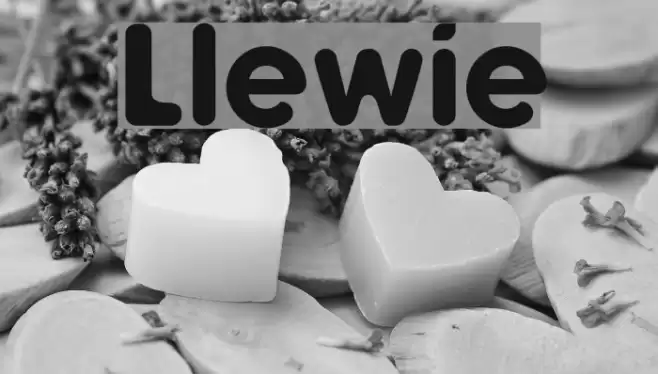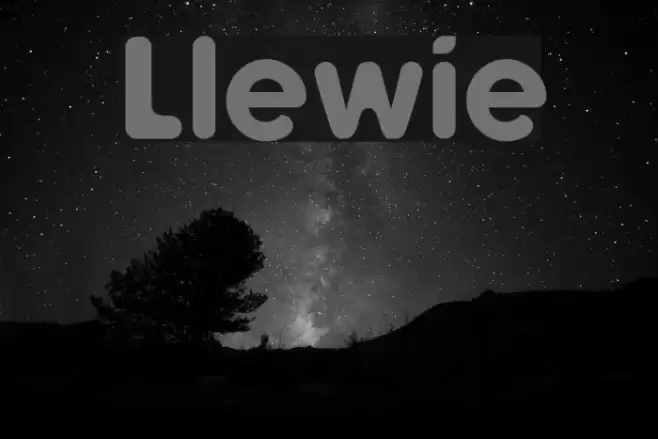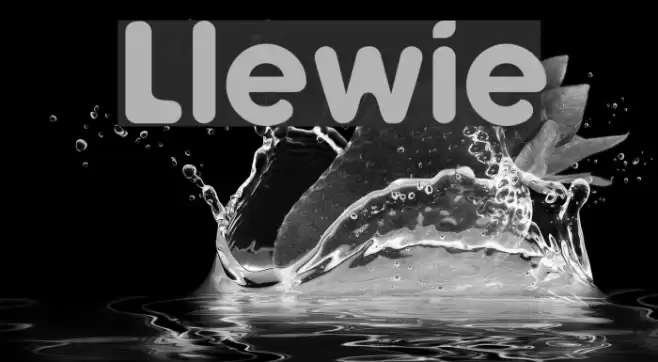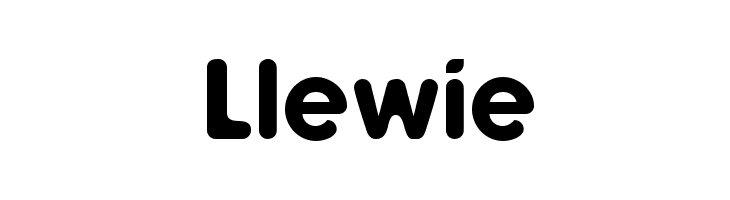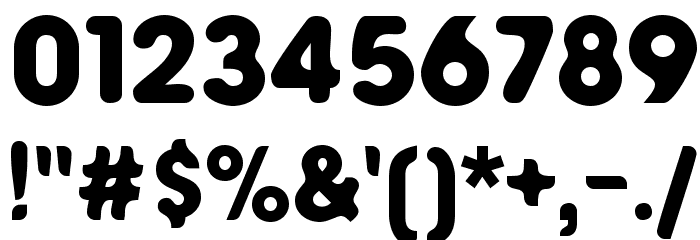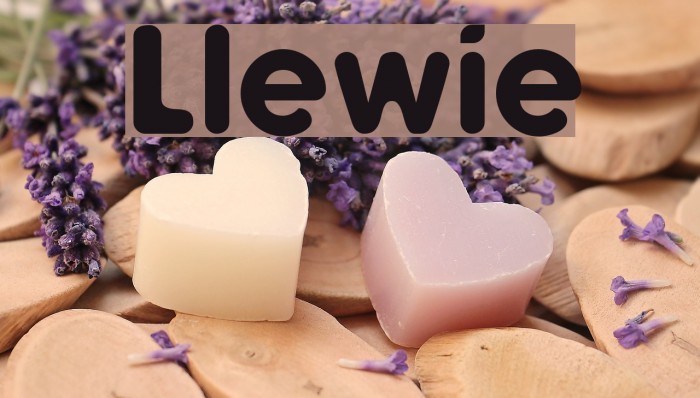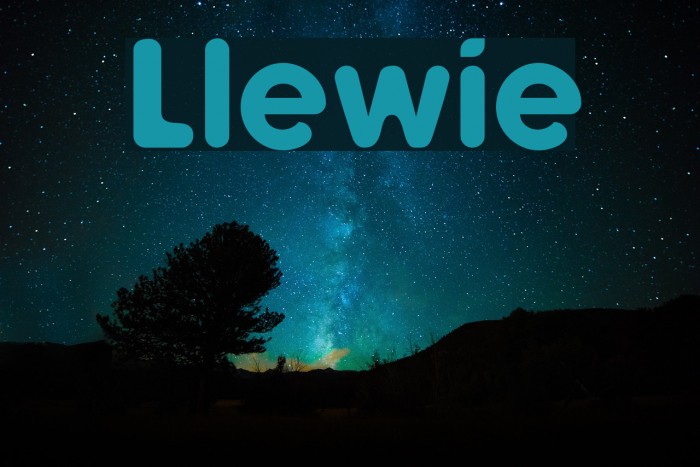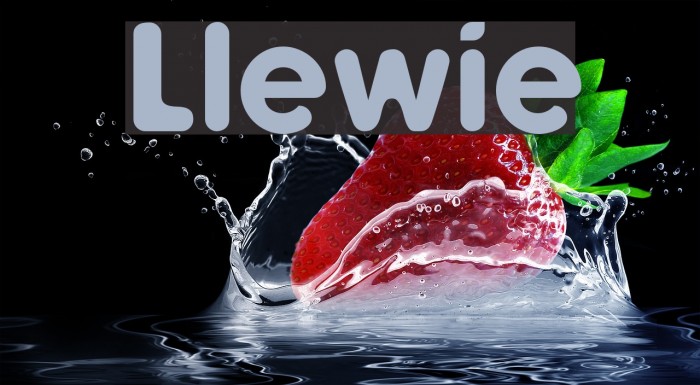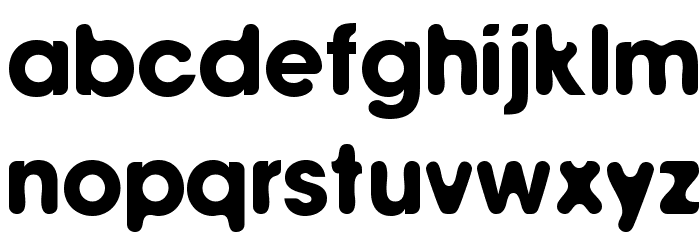
Llewie
This font features a bold and playful design with rounded edges and a bubbly appearance. The characters are uniformly thick, giving it a strong presence and making it highly legible. Its rounded forms and consistent stroke weight create a friendly and approachable look, suitable for a variety of creative projects. The font maintains a consistent width across all characters, ensuring a balanced and harmonious appearance. Its whimsical style is perfect for capturing attention and adding a touch of fun to any design.
A bold, playful font with rounded edges and a bubbly appearance.
- Proposed Projects: Ideal for children's books, playful branding, posters, and social media graphics.
- Overall Style: Playful, Modern
- Use Case: Headlines, Logos, Posters